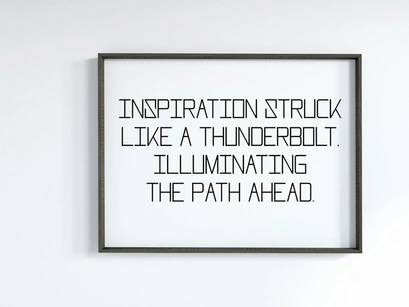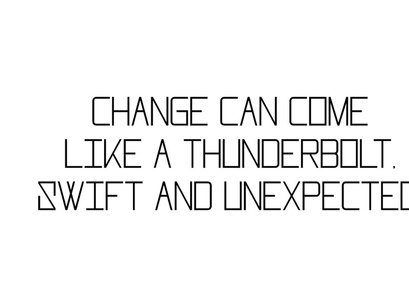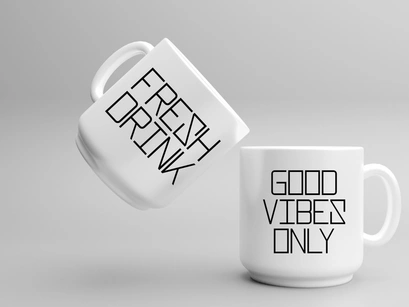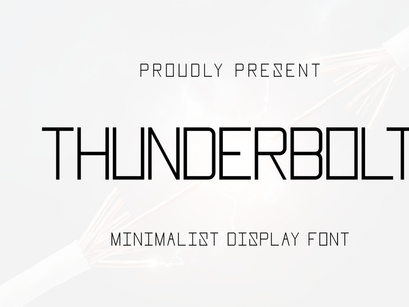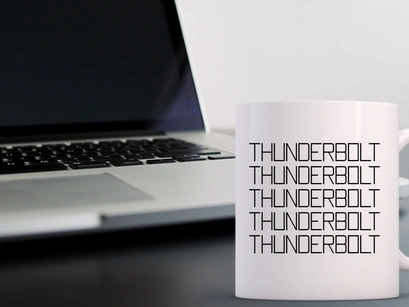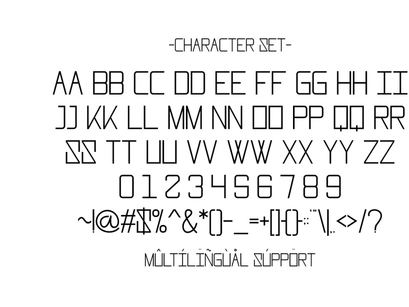
Thunderbolt - Minimalist Display FontPremium
Thunderbolt - Minimalist Display Font
Thunderbolt
Thunderbolt is a modern and light sans serif font that exudes a sense of clarity and simplicity. Its clean and minimalist design creates a contemporary atmosphere, making it perfect for projects that require a touch of elegance and lightness.
Its sleek and modern aesthetic makes it perfect for creating elegant and understated designs for t-shirt mockups, mugs, and wall art.